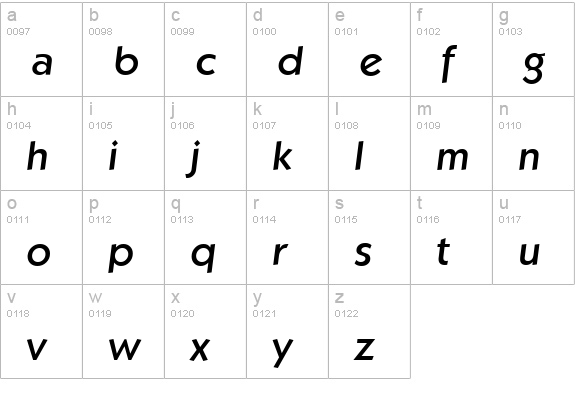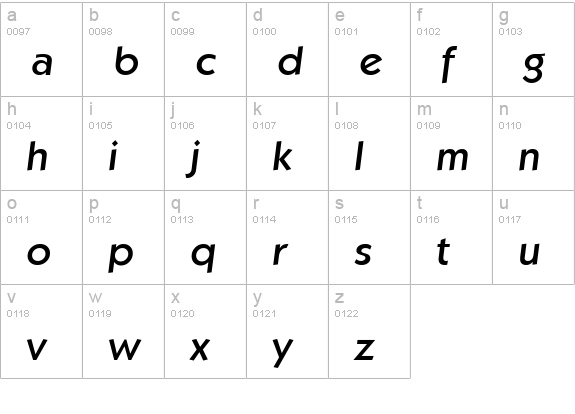
KoblenzSerial-Medium-Italic is a balanced, medium-weight, italic variant in the KoblenzSerial typeface family \xE2\x80\x94 well suited to sub-headlines, navigation, and balanced editorial work.
KoblenzSerial-Medium-Italic is a stylish and elegant font that exudes sophistication and modernity. Its sleek design and unique italic style make it perfect for adding a touch of flair to any project. The graceful curves and precise lines of this font create a sense of refinement and class that is sure to elevate your designs. What makes KoblenzSerial-Medium-Italic even more appealing is that it is available for free download at FontsMarket.com. This means that you can access this high-quality font without any cost, making it a fantastic option for designers looking to enhance their projects without breaking the bank. Whether you're working on a branding project, editorial design, or any other creative endeavor, KoblenzSerial-Medium-Italic is a versatile and eye-catching font that will surely make a statement. Download it for free today and see how it can take your designs to the next level.